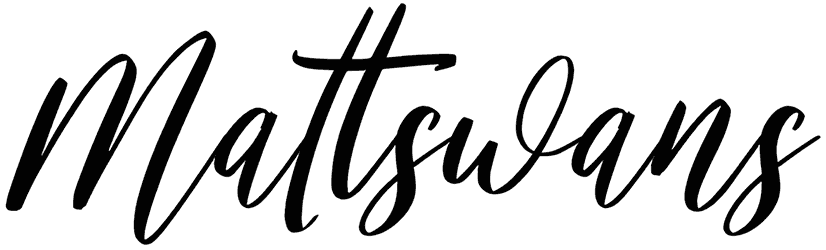
Mattswans Font
The classic and natural mood are bold features that can be seen in Mattswans, and you can use them in various designs. This handwritten font has a soft and twisty letter style that would throw some beautiful vibe into your words. With A-Z characters, Mattswans font will display your layouts, namely branding, party invitations, postcards, or whatnot, with a unique face, and make them memorable.